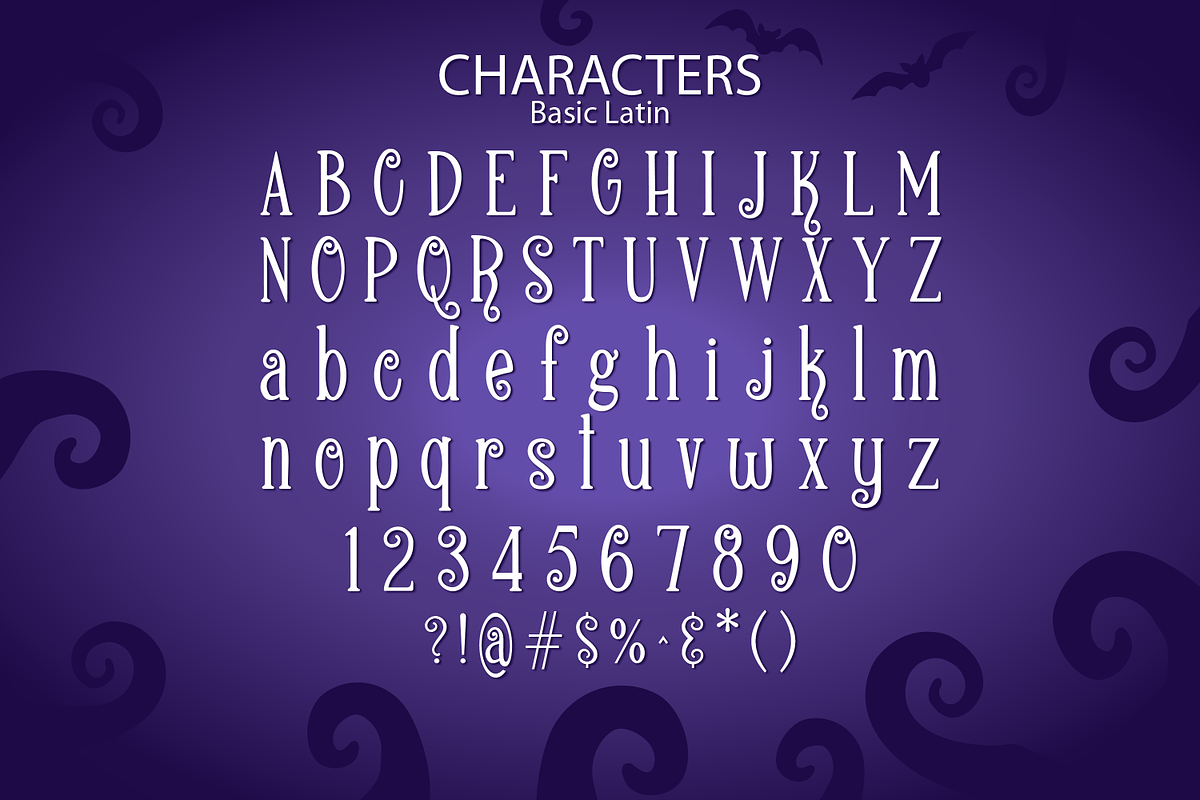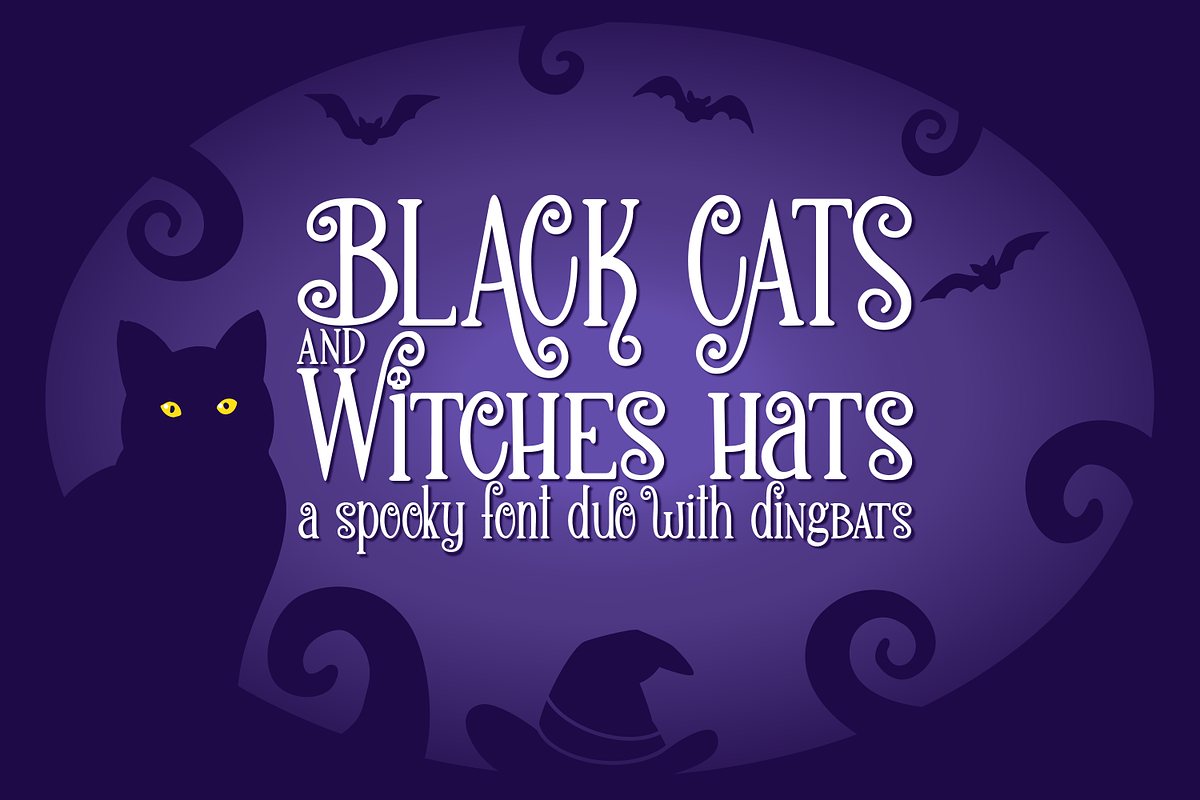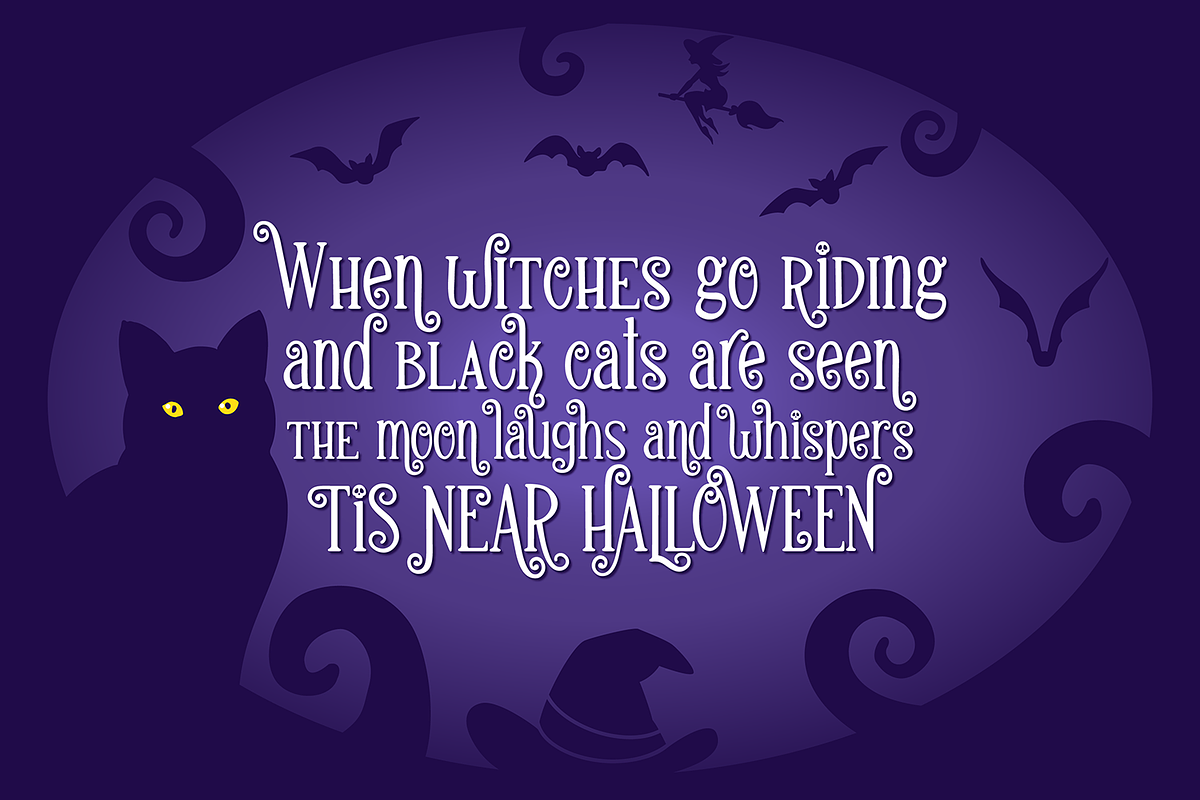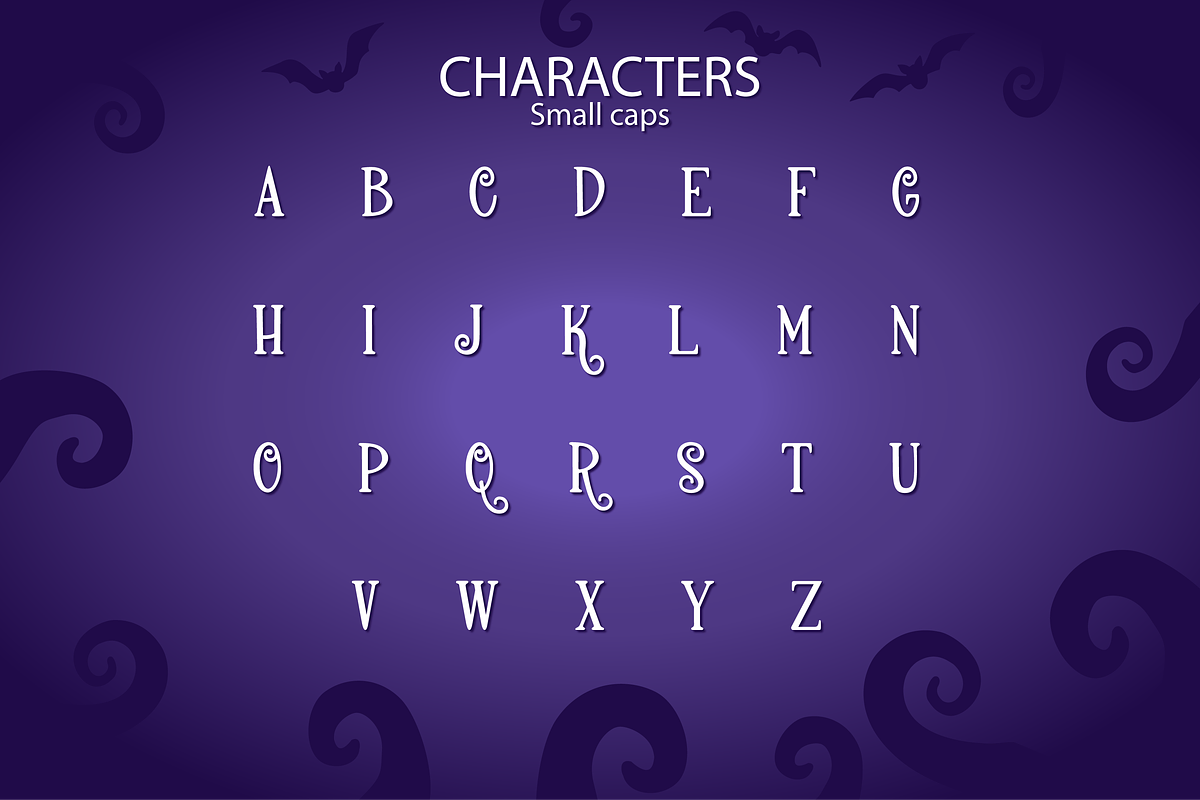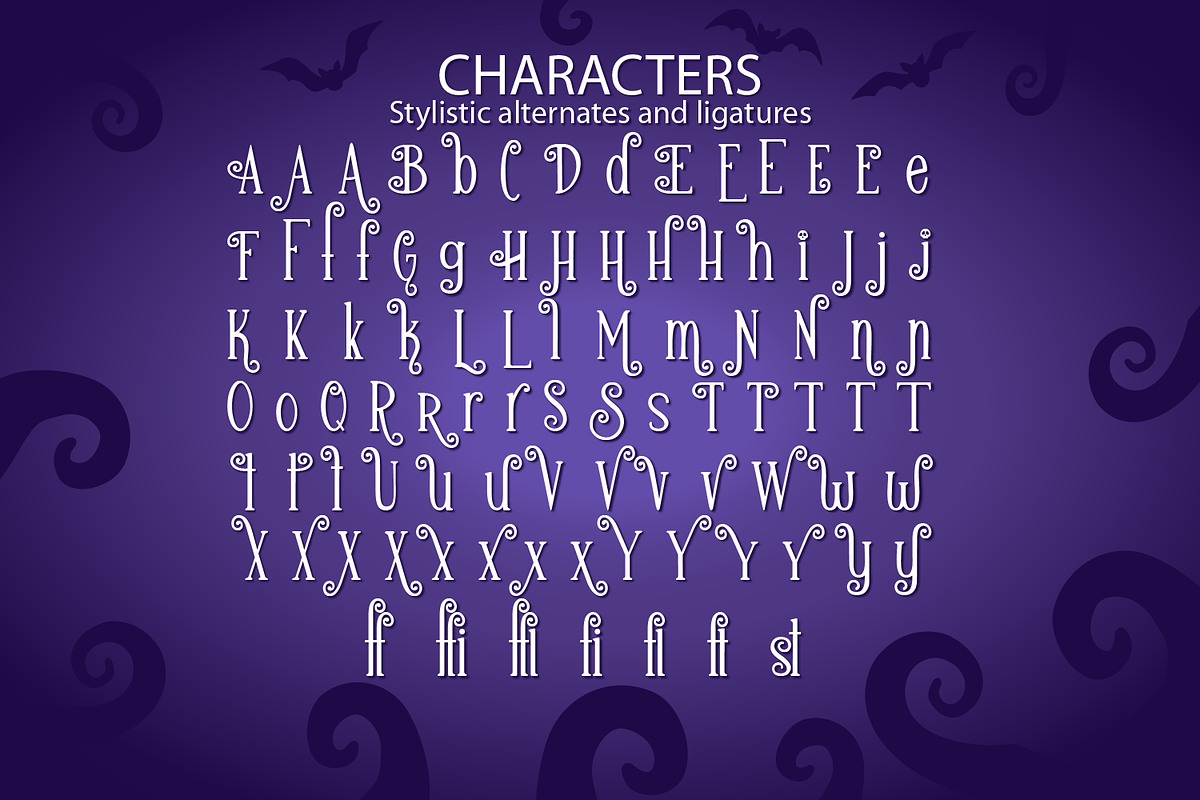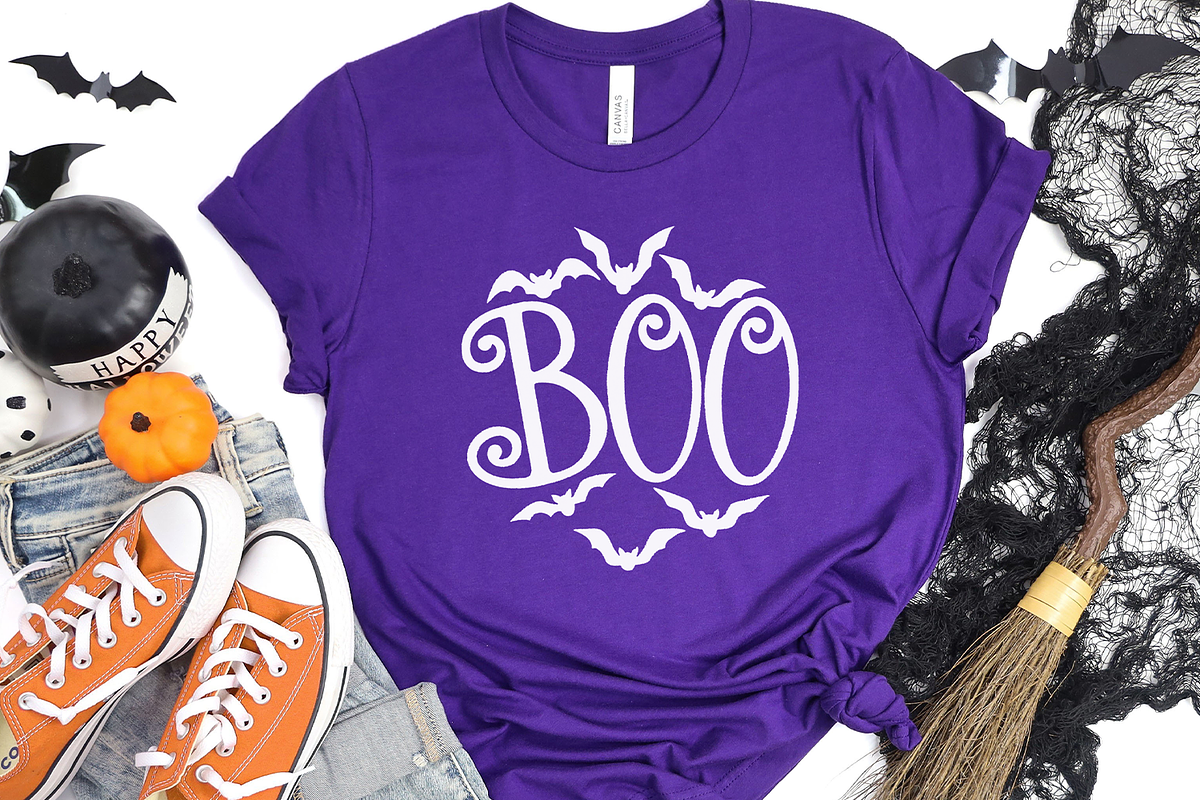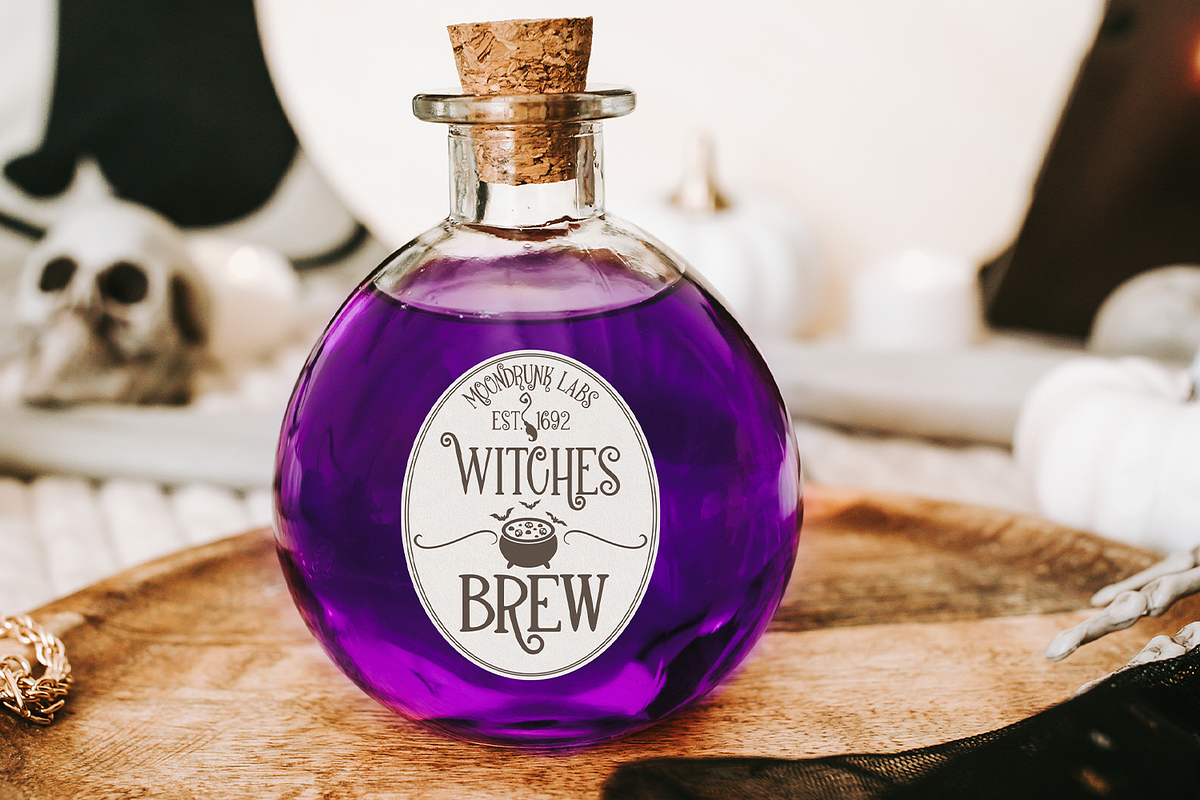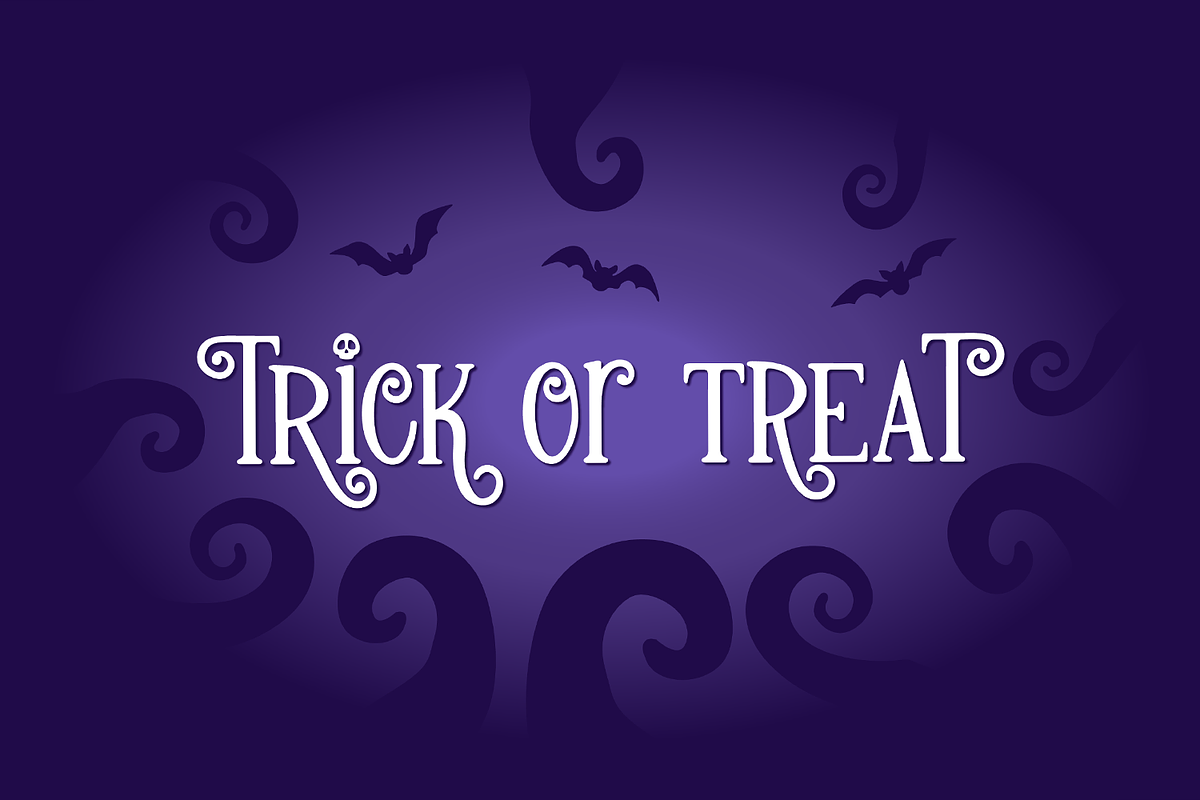
Black Cats and Witches Hats Font Duo
Introducing Black Cats and Witches Hats a spooky serif font duo with dingBATS!
This font is inspired by my own black cat and her swirly curly tail! It is a dark whimsical font with swirls and swashes that perfectly captures the spirit of Halloween!
This fun font includes standard ligatures, small caps, as well as stylistic alternates so you can use Open Type to create stunning, unique typography.
In total, there are 581 glyphs including 121 stylistic alts and ligatures.
This font was designed to work best with OpenType.